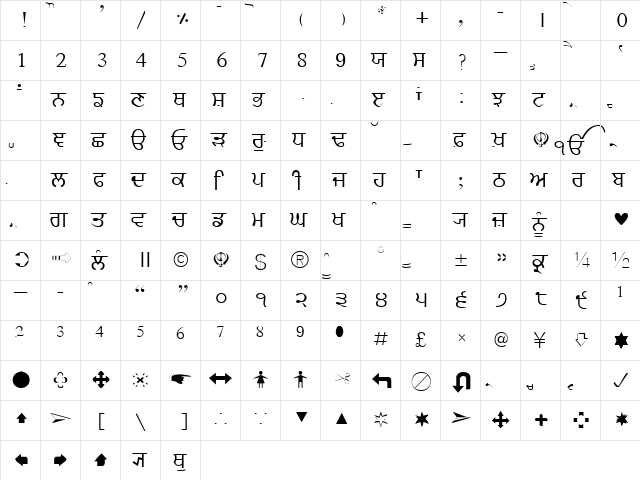
Janmeja2002N Medium Font Preview
Janmeja2002N Medium
Design Context for Janmeja2002N Typeface
Janmeja2002N is a composed and adaptable typeface that performs quietly and consistently across a wide range of design contexts.